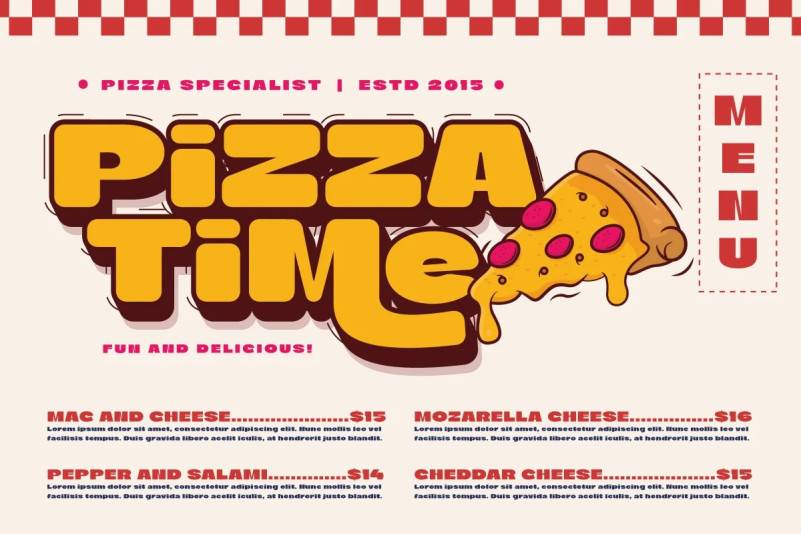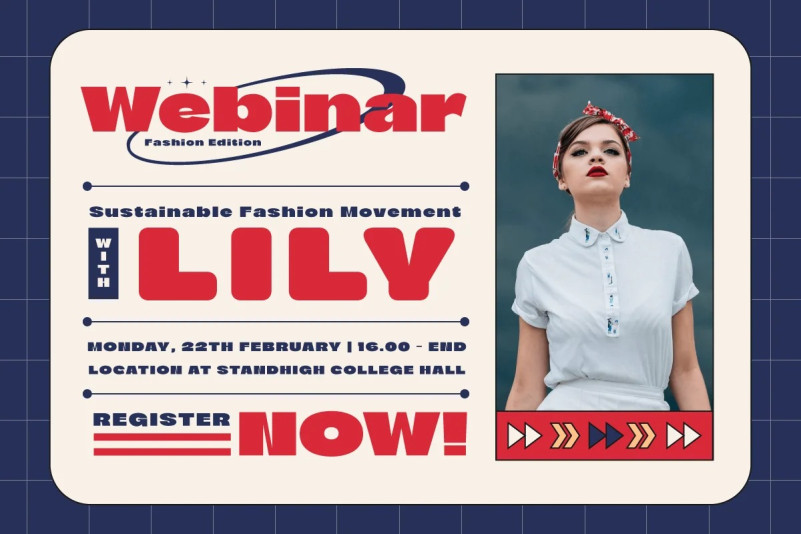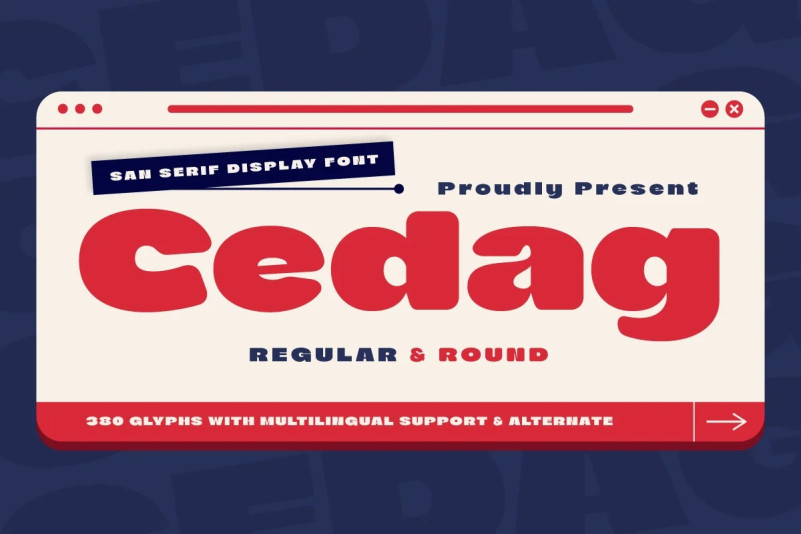
Cedag Round Font
Cedag Round Font , a stunning Display San serif font that exudes elegance and boldness. The font boasts two unique families, regular and round, both offering a modern twist to a classic look. With its sleek and stylish design, Cedag Round is perfect for any project that requires a confident and sophisticated aesthetic.
The regular family features a classic San serif style with a modern twist, while the round family has a bolder, more playful look. And with multilingual support, you can use Cedag for projects around the world.
Whether you’re designing a logo, branding materials, or any other creative project, Cedag is a versatile and impressive font that will elevate your work to the next level. Its bold and confident style is perfect for any modern design, making it a must-have for any designer or creative professional.